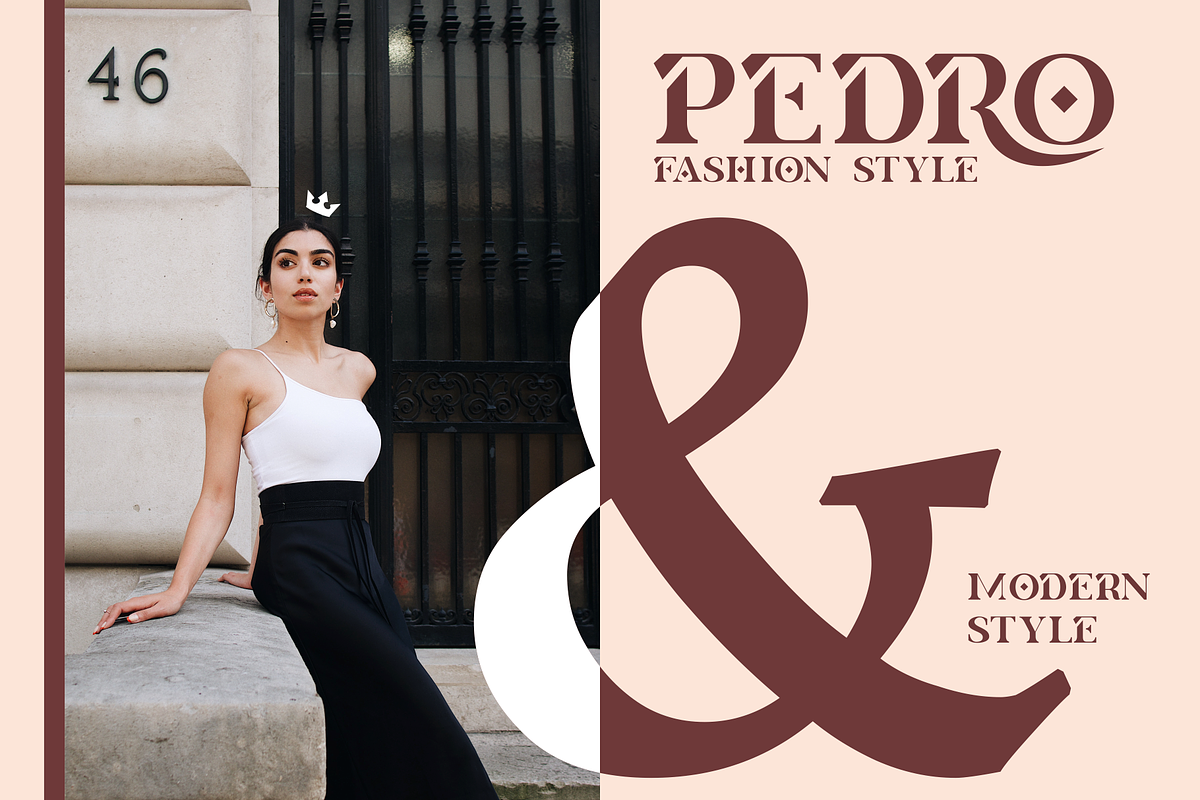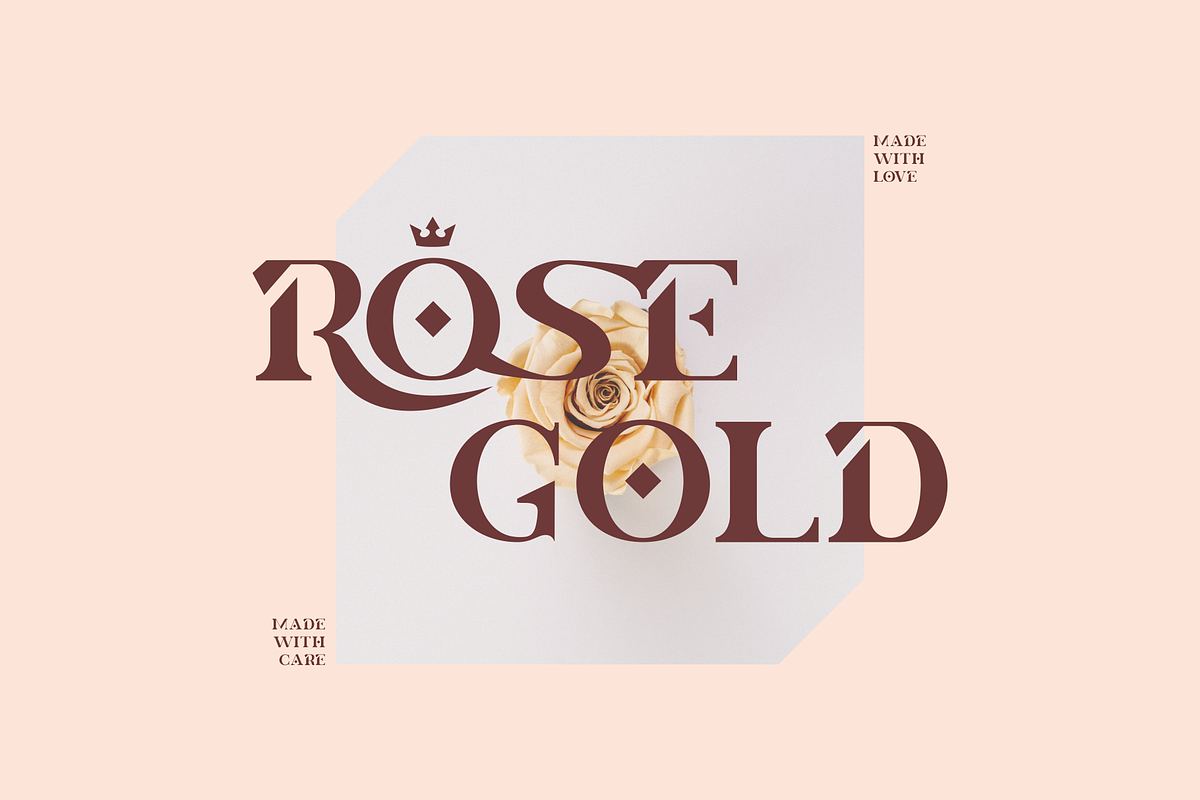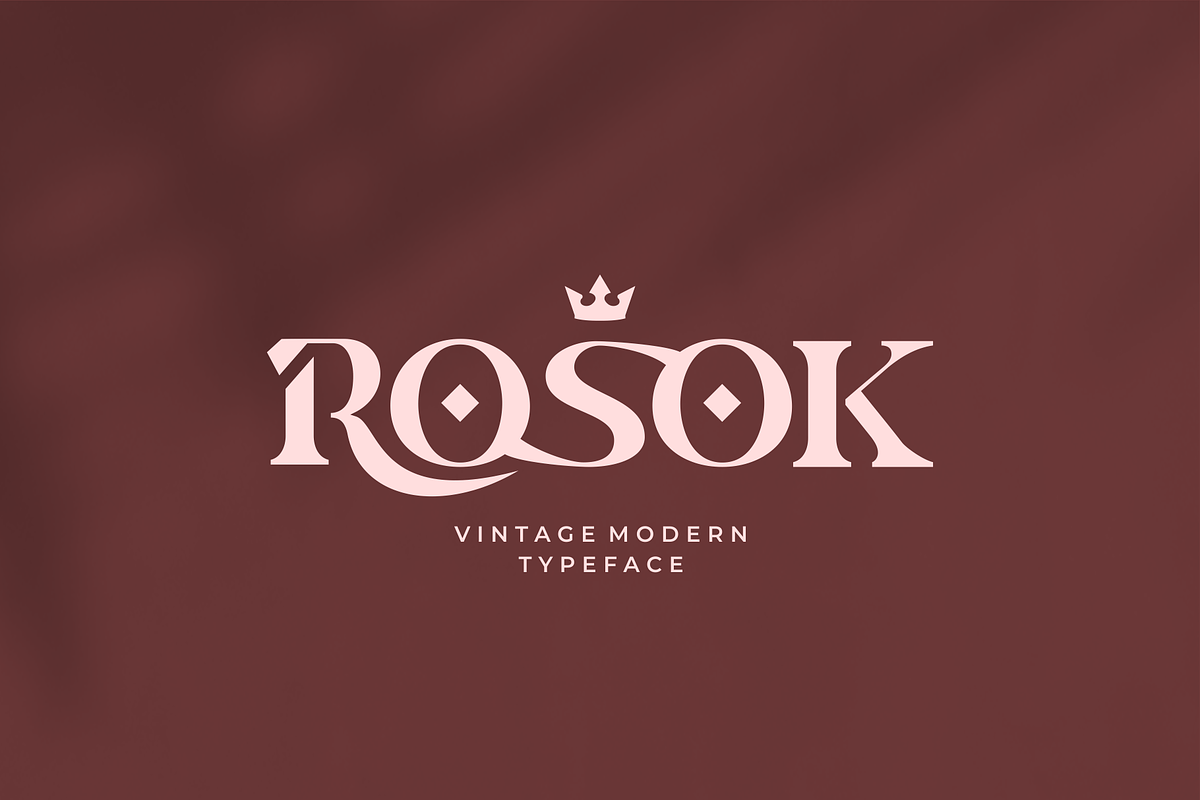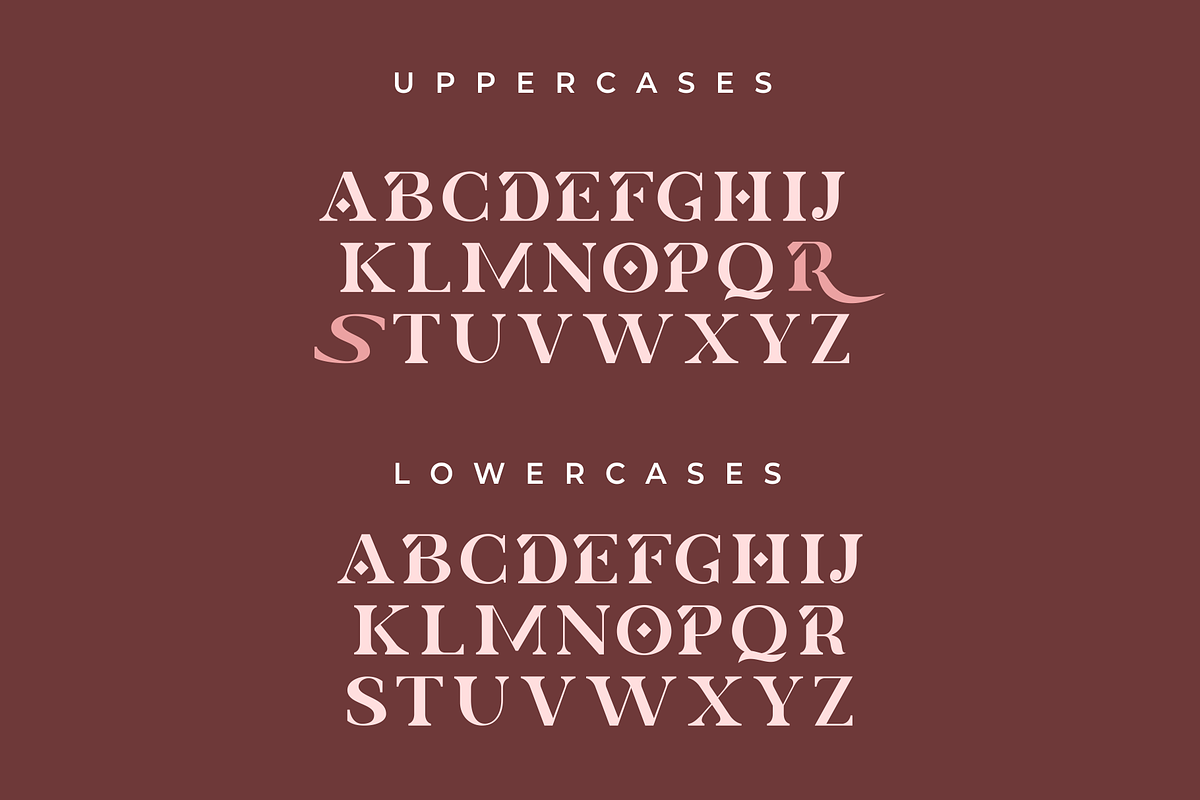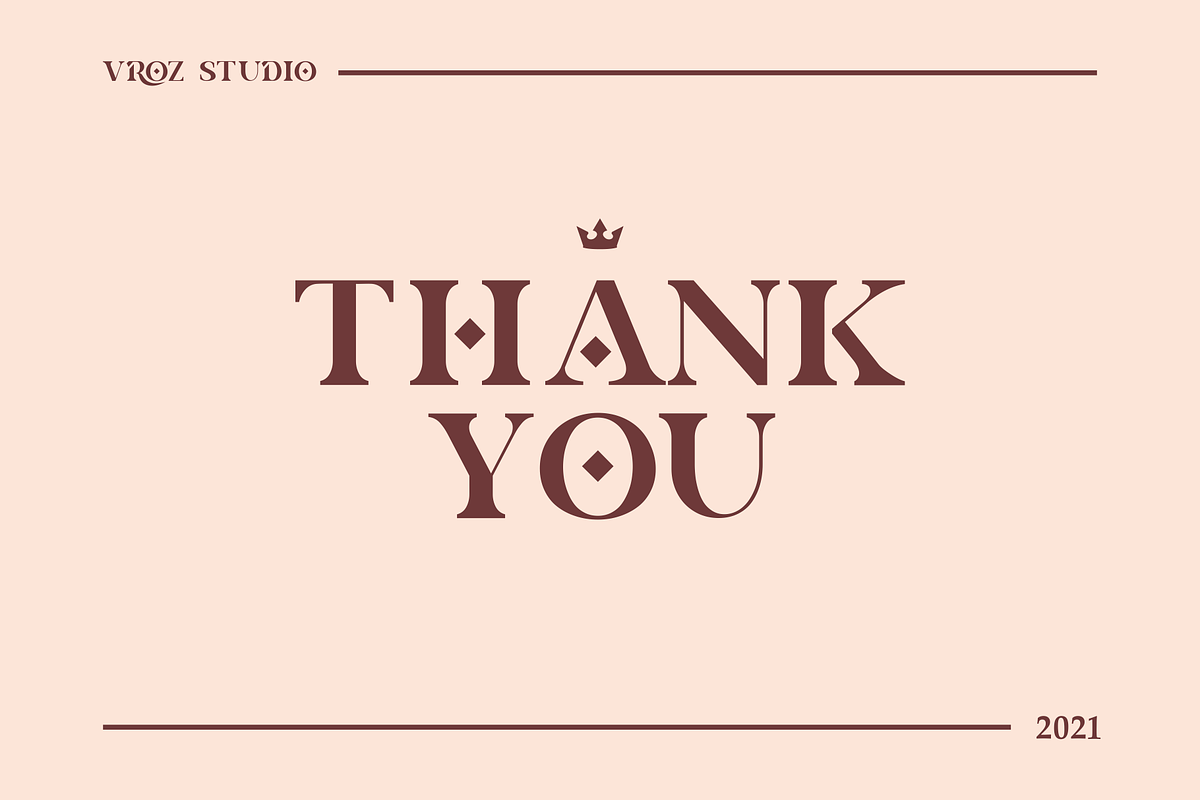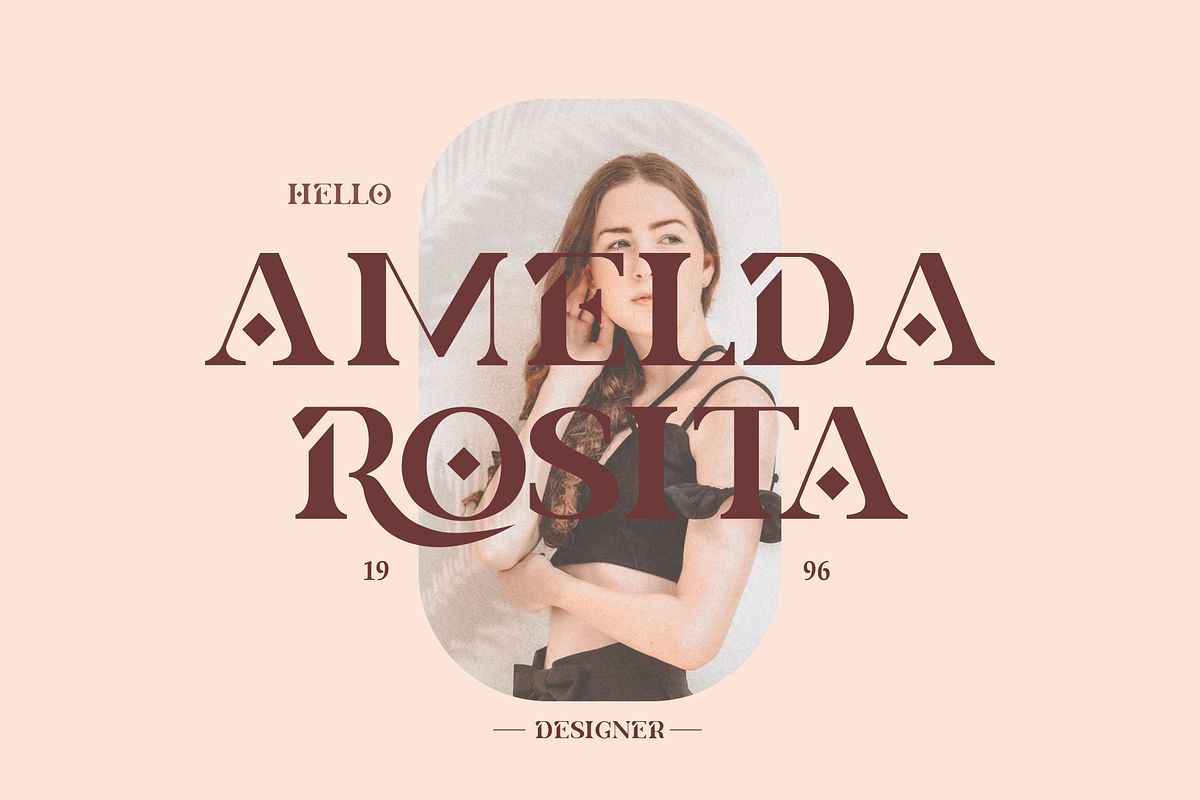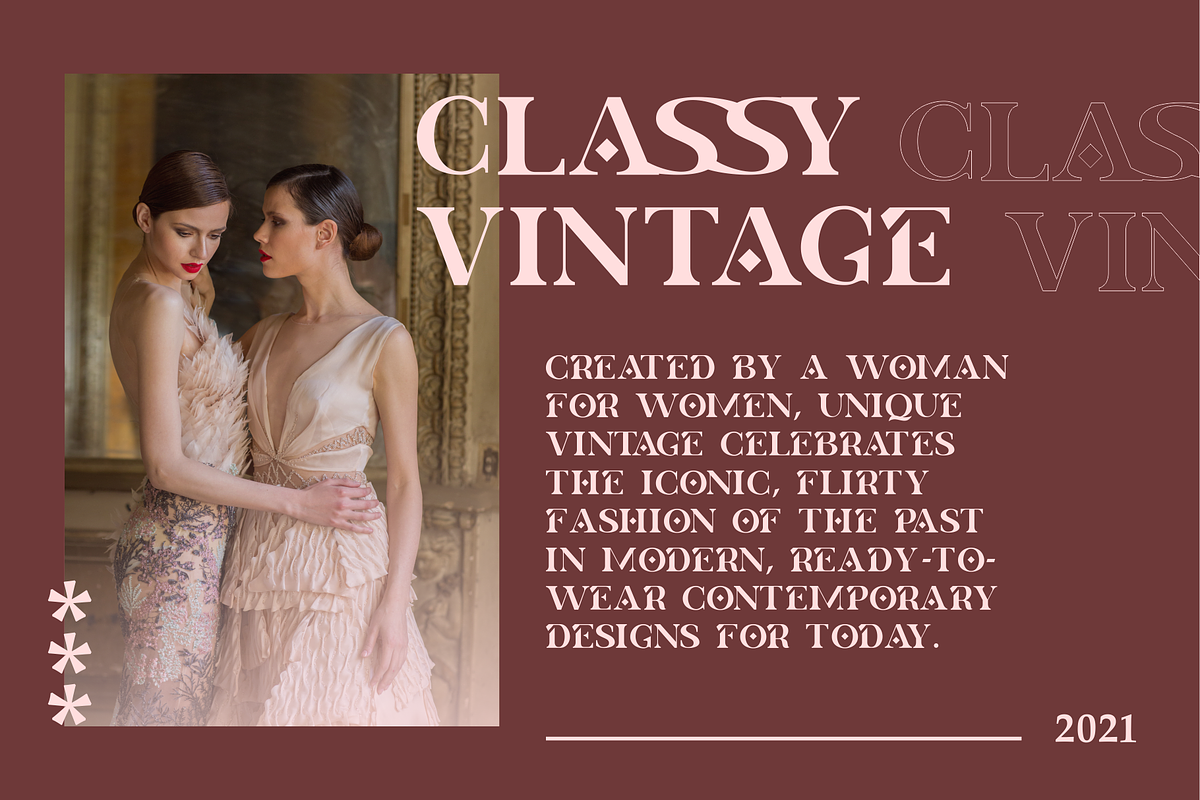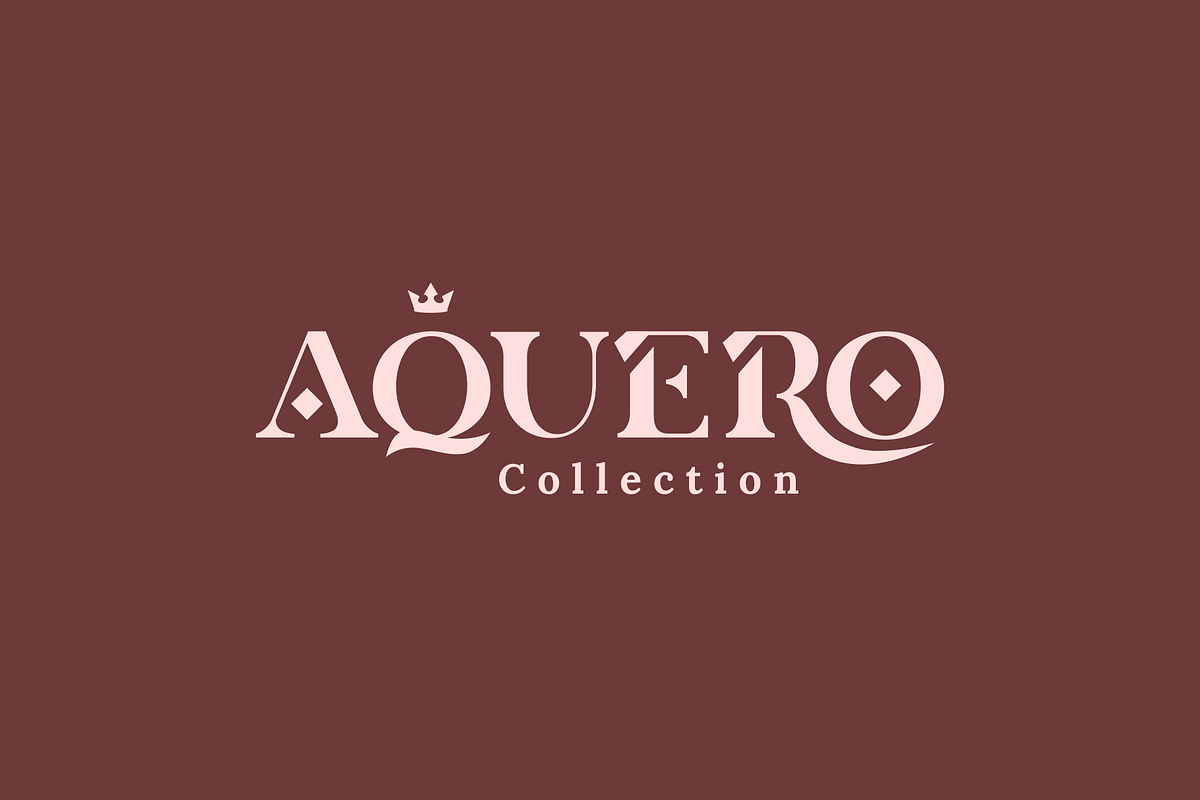
Aquero - Vintage Typeface
Aquero is a modern vintage serif will perfect for many project: fashion, magazines, logo, branding, photography, invitations, wedding invitation, quotes, blog header, poster, advertisements, postcard, book, websites, title etc.
Aquero includes uppercase alternates for each letter, but if it is uppercase you will find the difference with lowercase letters, namely the letters R and